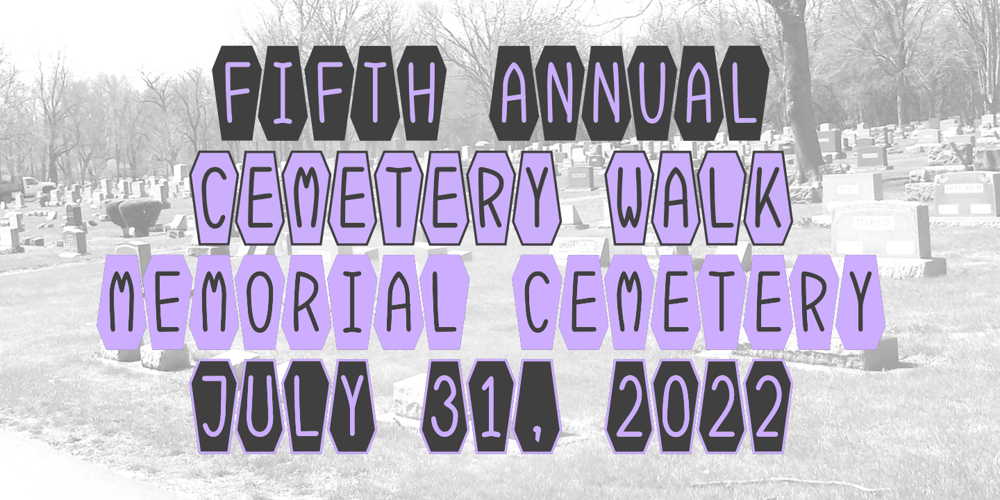
Coffinated Font Family was designed by Robert Schenk and published by Ingrimayne Type. Coffinated contains 2 styles and family package options. Coffinated features letters on coffin shapes. This caps-only family has two sets of characters, with one on coffins that are flipped from those in the other set. The OpenType feature contextual alternatives (calt) prevents two characters from the same set being adjacent. The two styles, bold and regular, can be used in layers to add color. There are not a lot of uses for macabre lettering (horror? Halloween?) but Coffinated is available for those who do find a use.